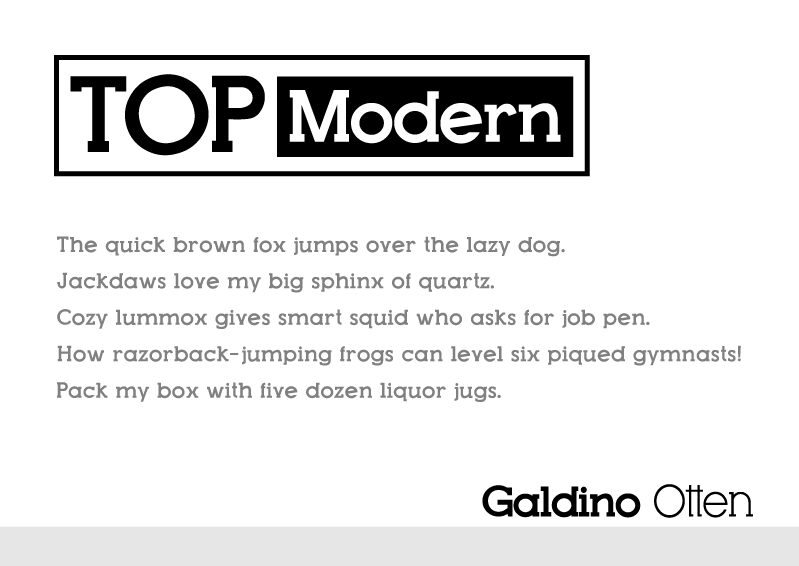
Top Modern, created by Galdino Otten in 2012, is a free display serif with broad, forceful proportions. Thick vertical strokes meet crisp, blocky serifs, and the rounded letters have a taut geometric structure. Its silhouette is unusually dense.
The sturdy shapes can echo architectural photography and hard-edged illustration in posters, music packaging, and event branding. In magazine design, the font is suited to cover lines and section openers, where its sharp details can connect typography with angular graphics.